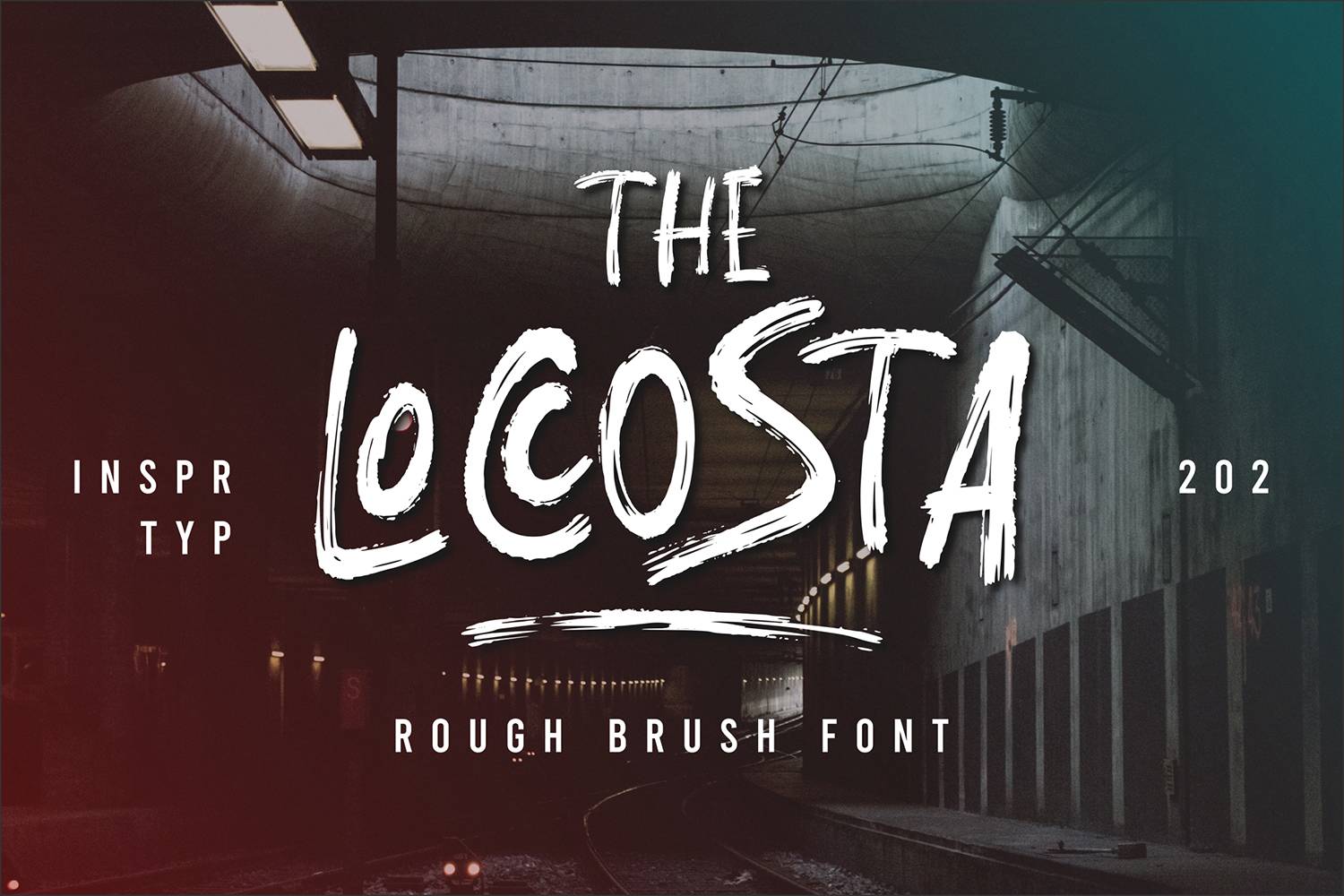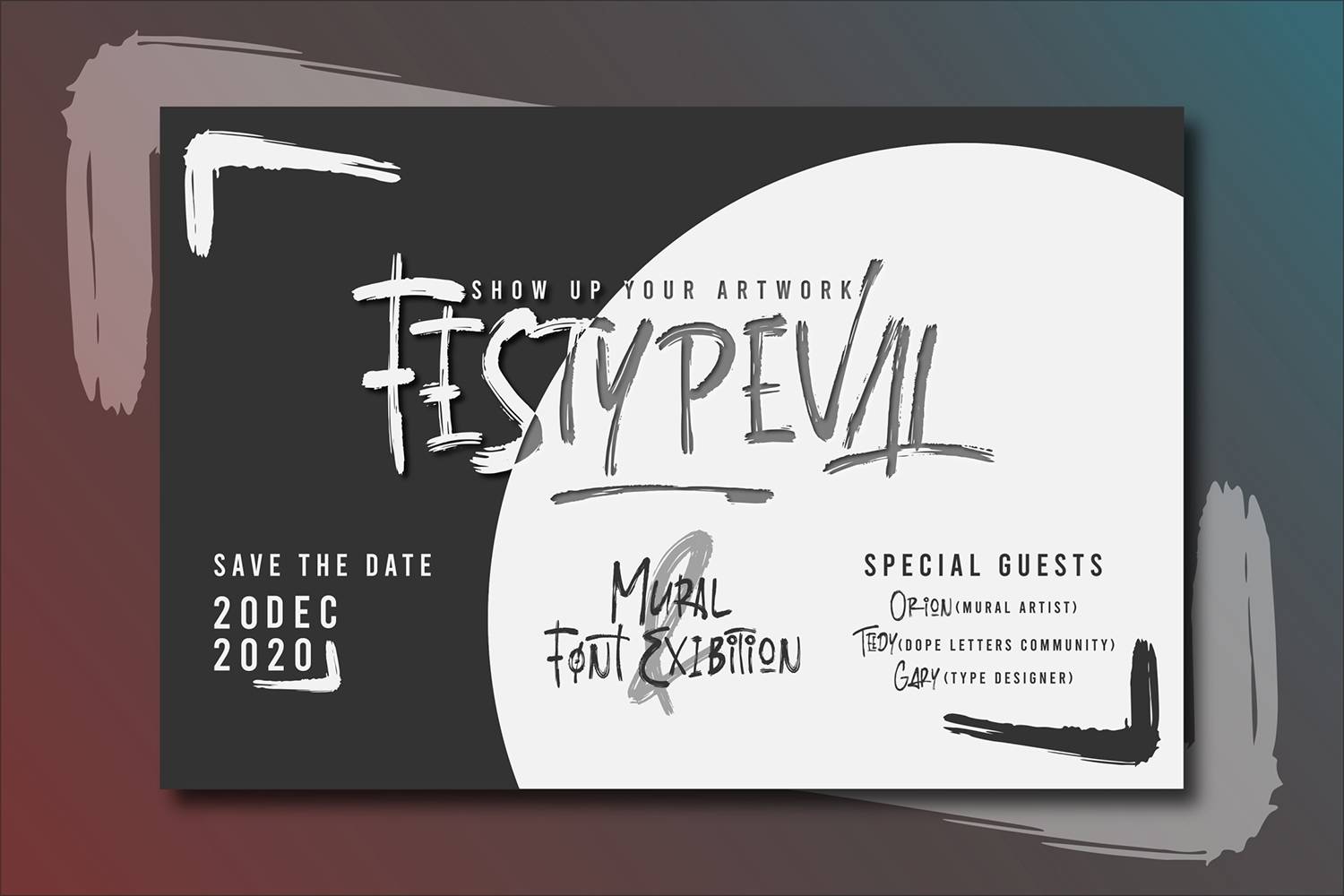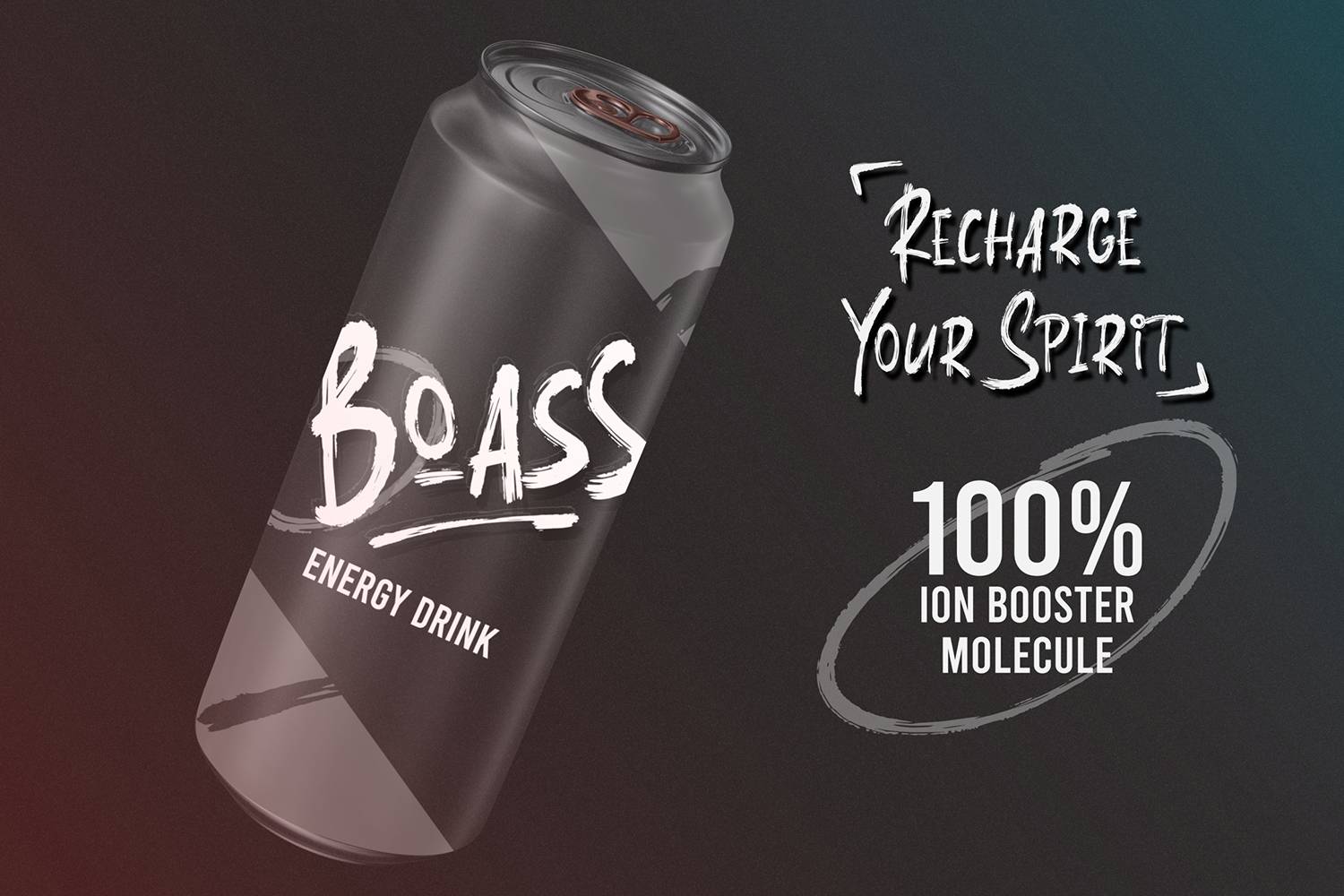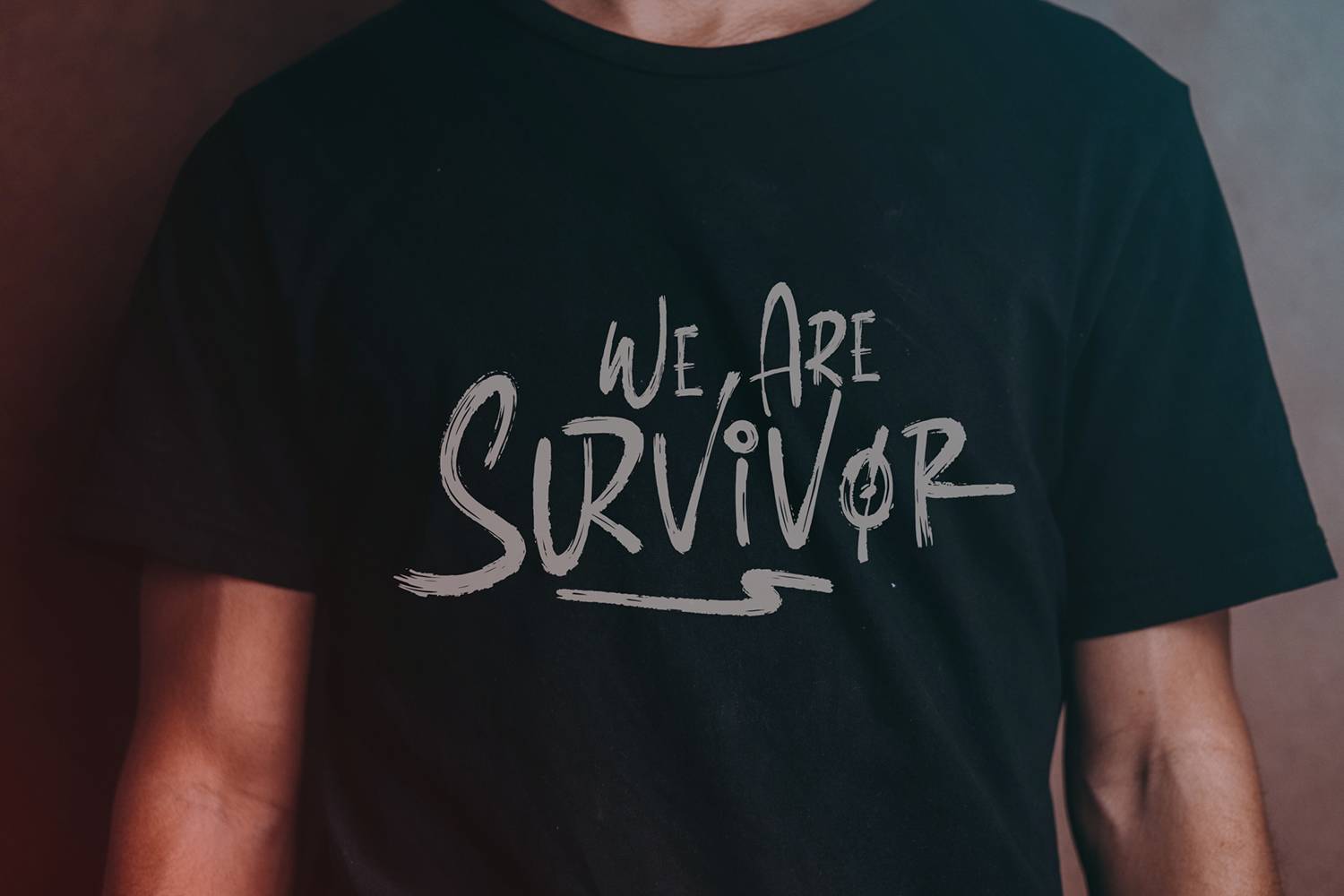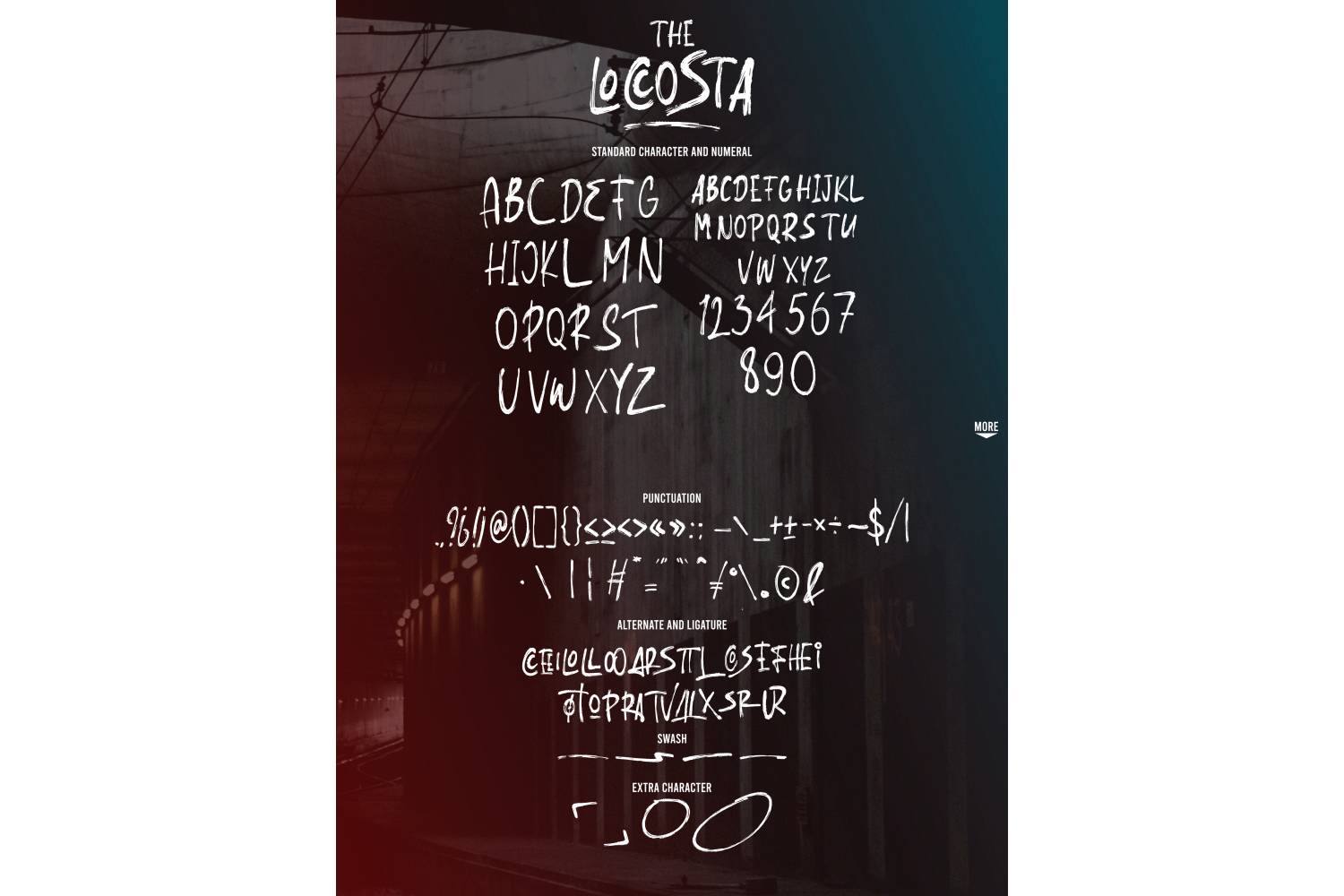
The Loccosta Font is a bold, expressive handwritten typeface with a raw, brush-stroke texture that gives it an edgy and artistic feel. Its tall, condensed letters and irregular shapes create a dynamic, energetic vibe that works great for eye-catching headlines, posters, and creative branding where a personal, unconventional touch is desired. This font shines in designs aiming for a bold, youthful, and rebellious personality.
The Loccosta Font
About The Loccosta Font
| Font family | The Loccosta Font |
| Designer | Inpiratype |